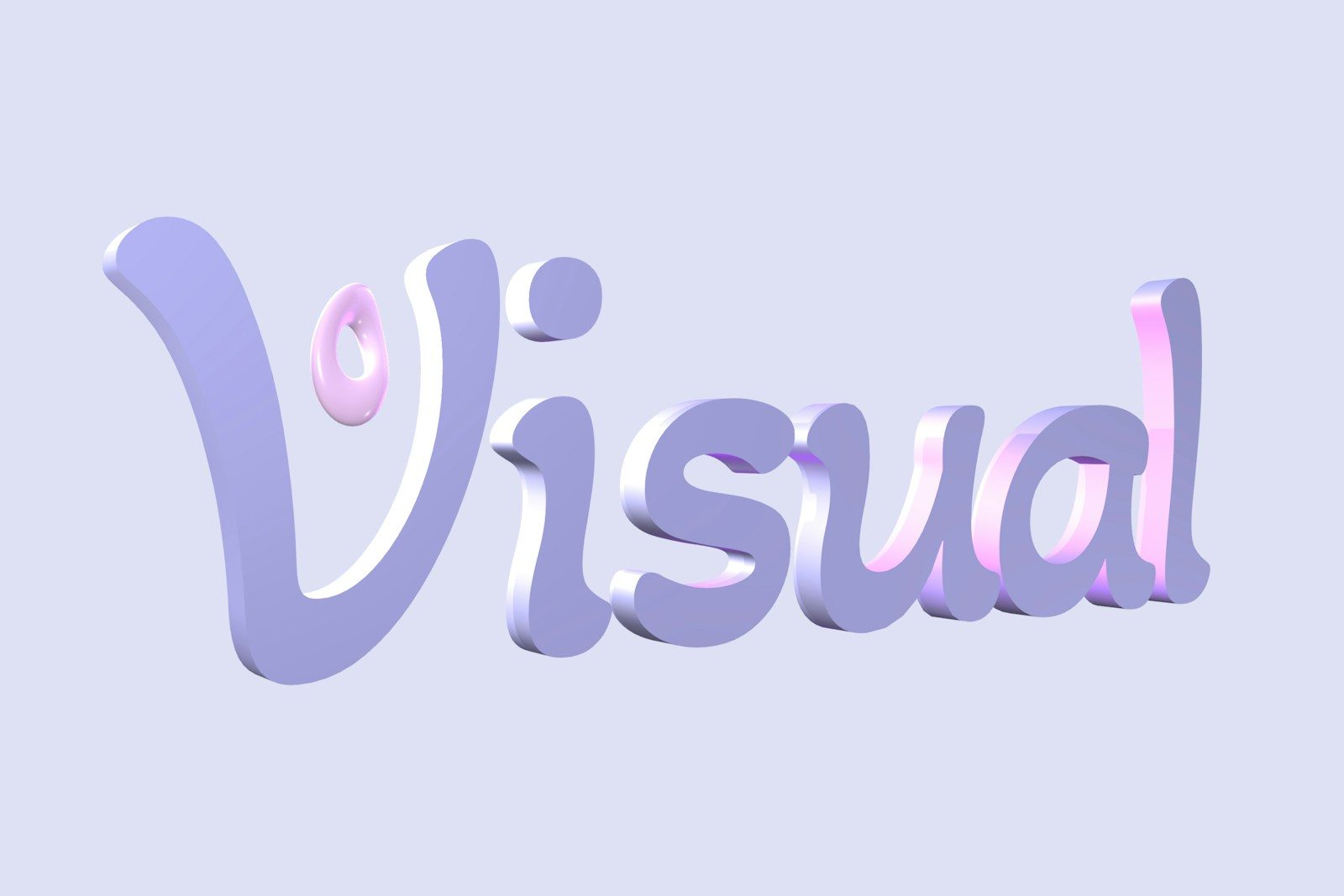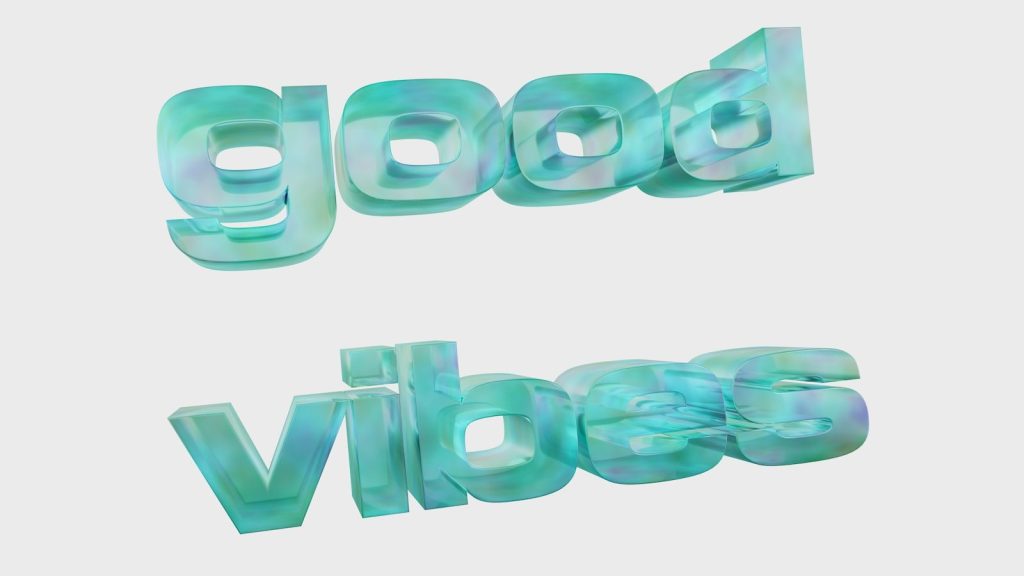
Cool Fonts: How to Find, Generate, and Use Them Anywhere Online
Cool fonts transform ordinary text into something visually striking, expressive, and memorable. Whether you want to style your social media bio, create a unique username, or add personality to your captions, cool fonts give your words an instant upgrade. Therefore, knowing where to find them and how to use them effectively puts you ahead of everyone still writing in plain, default text.
Furthermore, thanks to unicode technology, cool fonts are no longer limited to designers with expensive software. Anyone can generate hundreds of stylish text variations in seconds and paste them directly onto any platform, completely free.
What Makes a Font “Cool”?
3D text that says good vibes
A cool font is any typeface or unicode text style that breaks away from standard plain text and delivers a strong visual personality. Cool fonts stand out because they carry an aesthetic that resonates with a specific mood, subculture, or creative intention. For example, gothic blackletter feels edgy and bold, while elegant cursive feels romantic and refined.
In the context of online tools and text generators, cool fonts specifically refer to unicode-based character sets that visually mimic different typeface styles. In contrast to traditional font files, these unicode styles require no installation. As a result, they work instantly on Instagram, Twitter, TikTok, Discord, WhatsApp, and virtually every other digital platform.
Most Popular Cool Font Styles
Hundreds of cool font styles exist online, but a core group dominates creative and social media use. Each style carries a distinct personality suited to specific contexts and audiences.
• ๐“’๐“พ๐“ป๐“ผ๐“ฒ๐“ฟ๐“ฎ / Script: Flowing and elegant; the most popular choice for personal bios, names, and romantic or inspirational quotes
• ๐”Š๐”ฌ๐”ฑ๐”ฅ๐”ฆ๐”  / Blackletter: Dark and dramatic; widely used in music, streetwear branding, tattoo culture, and edgy social profiles
• โ’ทโ“คโ“‘โ“‘โ“›โ“” โ“ฃโ“”โ“งโ“ฃ: Rounded and playful; a top pick for gaming usernames, fun captions, and casual social content
• ๐•ฏ๐–”๐–š๐–‡๐–‘๐–Š-๐–˜๐–™๐–—๐–”๐–๐–Š: Open and outlined; gives usernames and bios a clean, typographic poster feel
• ๐๐จ๐ฅ๐ ๐’๐š๐ง๐ฌ-๐’๐ž๐ซ๐ข๐Ÿ: Strong and modern; perfect for emphasis, key phrases, and professional-yet-stylish content
• ๐™ผ๐š˜๐š—๐š˜๐šœ๐š™๐šŠ๐šŒ๐šŽ: Technical and retro; favored by developers, coders, and tech content creators
• Sแดแด€สŸสŸ Cแด€แด˜s: Compact and refined; works beautifully for taglines, subtitles, and understated headline styling
• Flipped and mirrored text: Novelty styles that create an upside-down or reversed effect; popular for humorous and attention-grabbing posts
How to Generate Cool Fonts Instantly
Generating cool fonts online takes less than a minute and requires no design skills whatsoever. The process is simple and works on any device, including mobile phones and tablets.
1. Open a font generator: Visit any online cool font tool directly from your browser without downloading anything
2. Type your text: Enter your name, quote, username, or any phrase into the input field
3. Browse the styles: Your text instantly appears across 100 or more cool font style variations simultaneously
4. Select your favorite: Scroll through gothic, cursive, bubble, bold, and dozens of other options to find your preferred look
5. Copy with one click: Tap any style to copy it automatically to your clipboard
6. Paste anywhere: Drop the styled text into your bio, caption, message, or document instantly
For the best results, use a dedicated cool fonts text generator that offers a wide variety of styles in one place, so you can compare options side by side and copy your choice in a single click.
Cool Fonts for Instagram and Social Media
Instagram does not support native font formatting in bios, captions, or comments. However, cool fonts generated through unicode-based tools display perfectly on Instagram because the platform already supports the full unicode character set. Therefore, a stylized bio written in cursive or gothic unicode text appears exactly the same for every follower on every device.
Profiles that use cool fonts in their bios consistently attract more attention because they stand out visually from the thousands of plain-text profiles in any niche. Additionally, using a consistent cool font style across your bio, pinned post captions, and story highlights creates a cohesive, branded aesthetic that signals professionalism and creativity.
Cool Fonts for Gaming and Discord
The gaming world has fully embraced cool fonts as a form of personal expression and competitive identity. Discord servers, Steam profiles, gaming bios, and streaming channel pages all benefit from stylized text that makes a profile instantly recognizable. Furthermore, gothic and bold unicode styles are especially dominant in competitive gaming communities where visual identity carries real social weight.
Additionally, cool fonts are completely free, require no technical skills, and work on every major platform instantly. Whether you are a student personalizing a profile, a creator building a brand, or a business owner crafting social content, cool fonts are one of the simplest and most effective upgrades you can make to your online presence today.